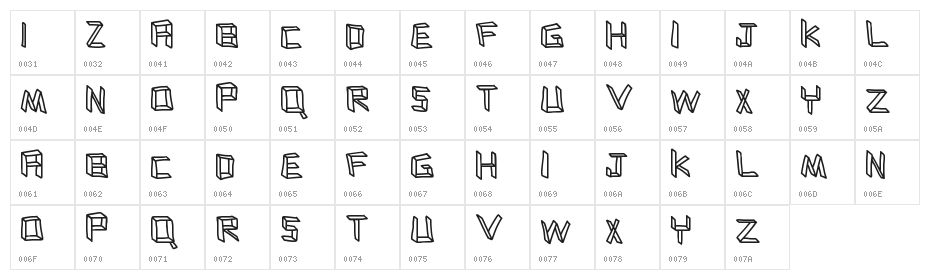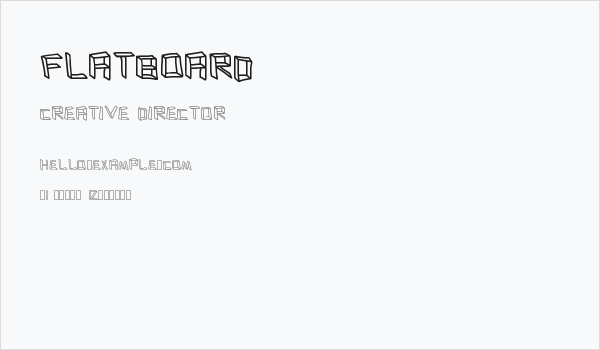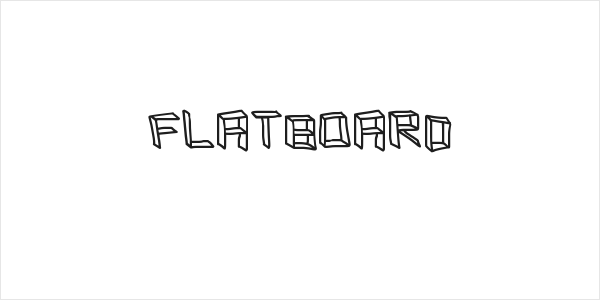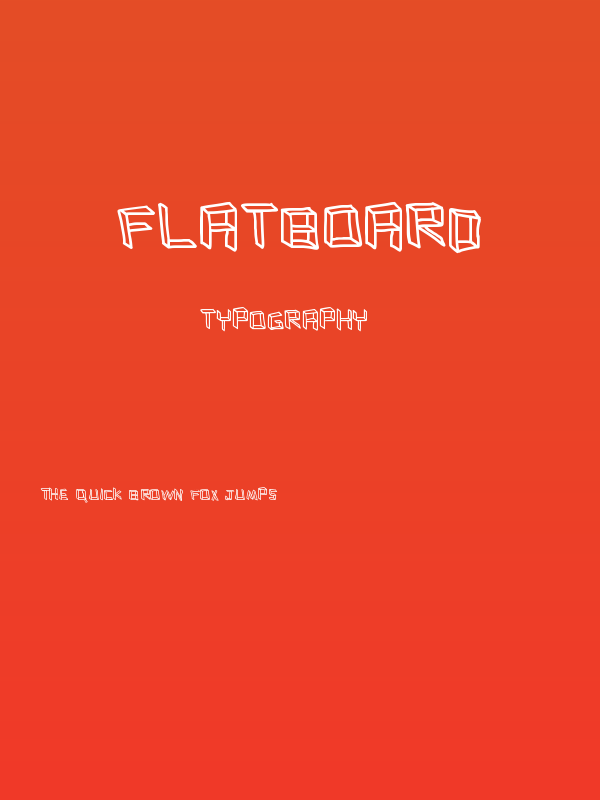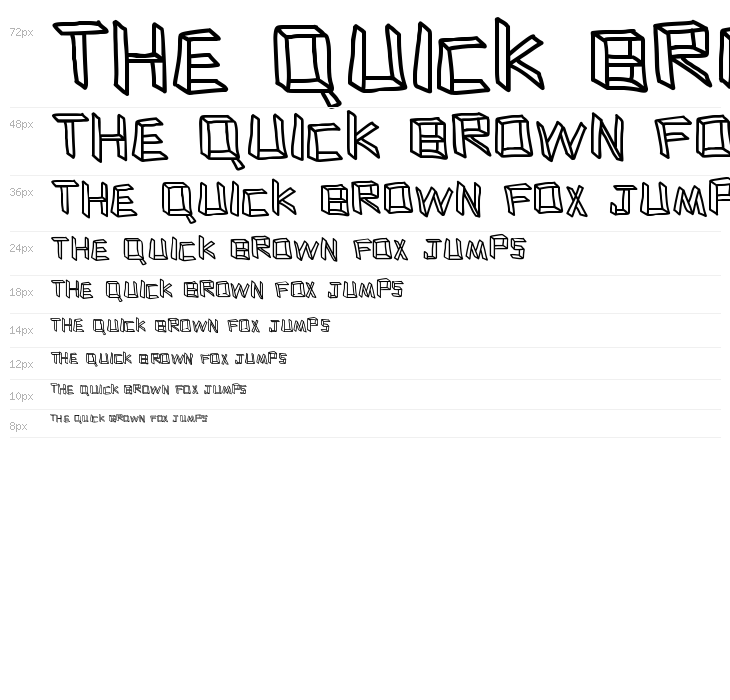
flatboard Font
flatboard Description
This font features a unique, geometric style with a three-dimensional effect, giving each character a bold and striking appearance. The letters are constructed with angular lines and sharp edges, creating a sense of depth and perspective. The uppercase and lowercase letters maintain a consistent design, enhancing the cohesive look of the font. The numbers and special characters follow the same geometric pattern, ensuring uniformity across all elements. This font's distinct style makes it suitable for projects that require a modern and edgy aesthetic.